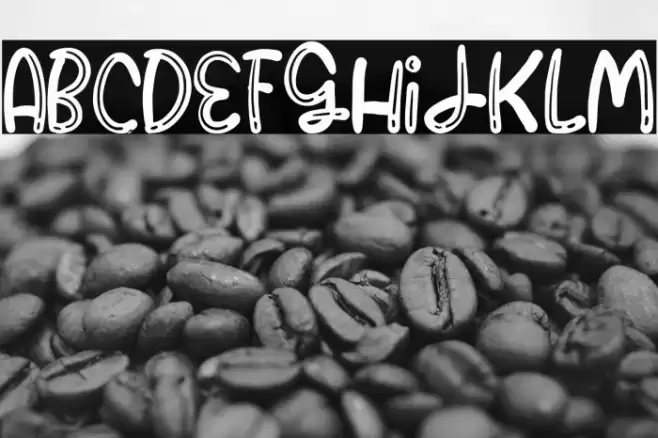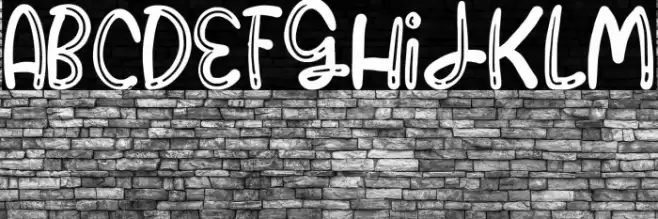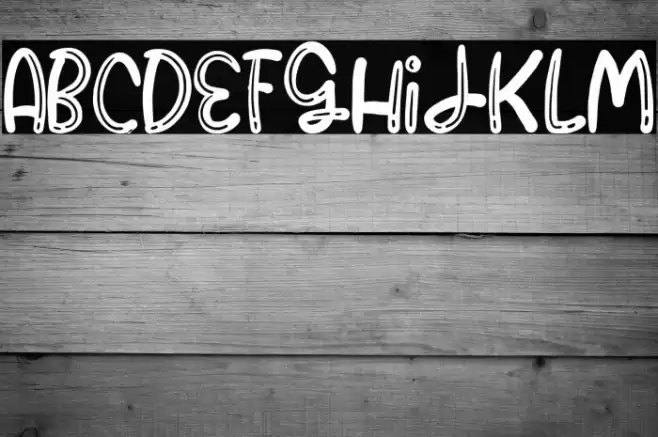
This playful and whimsical font features a hand-drawn style with a unique and quirky character. Each letter is crafted with a sense of fun, incorporating irregular shapes and varying stroke widths that give it a lively and dynamic appearance. The uppercase and lowercase letters maintain a consistent style, while numbers and special characters are designed to complement the overall aesthetic. The font's distinctive personality makes it ideal for creative projects that require a touch of humor and individuality.
A playful, hand-drawn font with quirky, irregular shapes from Uncategorized fonts.
- Font: Message From bear
- Proposed Projects: Ideal for children's books, greeting cards, playful branding, and creative posters.
- Use Case: Logos, Headlines, Creative projects